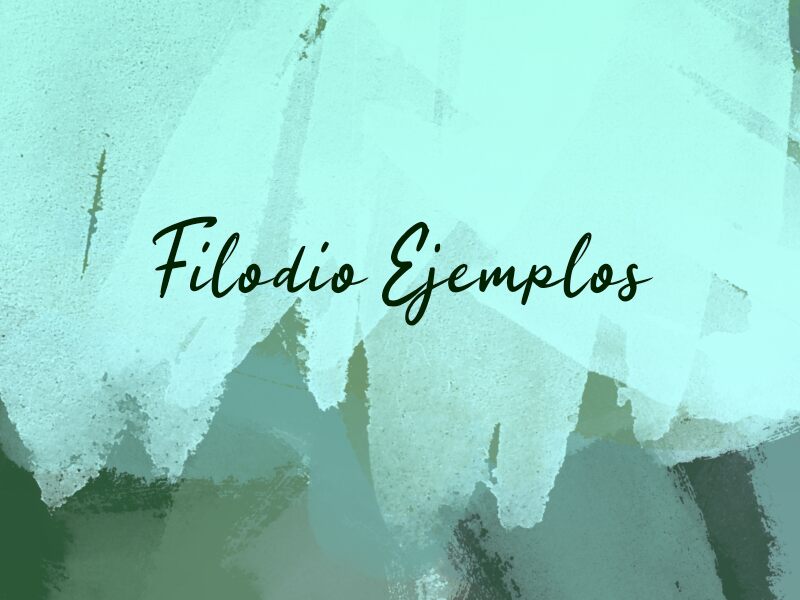
Filodio Ejemplos
Filodio Ejemplos, designed by wep, captures the essence of personal touch in its semi-light handwritten signature style. Perfect for branding, invitations, and editorial designs, this font infuses elegance and individuality into every project.
Its fluidity mirrors the intimate strokes of a pen on paper, making it ideal for creators seeking to add a bespoke charm to their work. Experience Filodio Ejemplos and elevate your design with its distinctively human character.